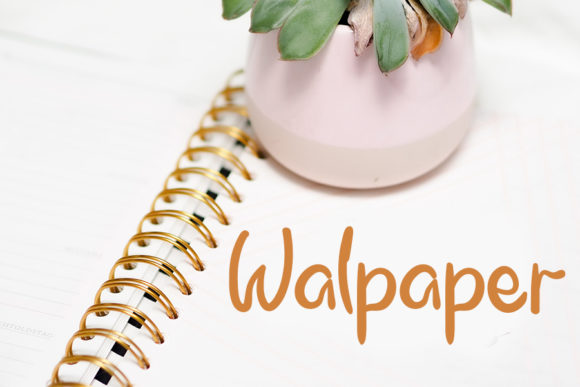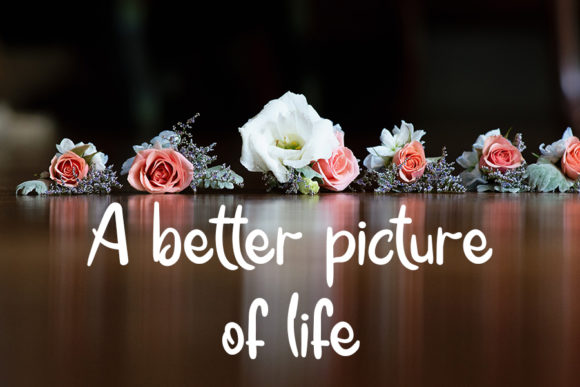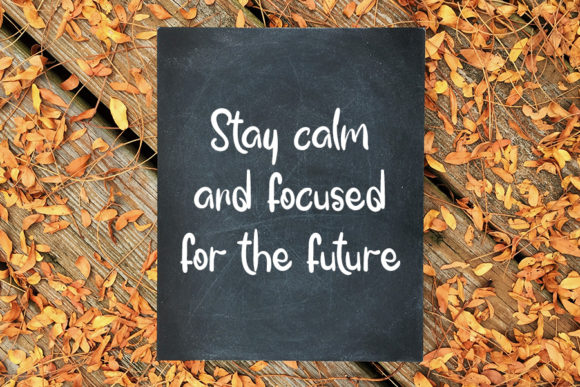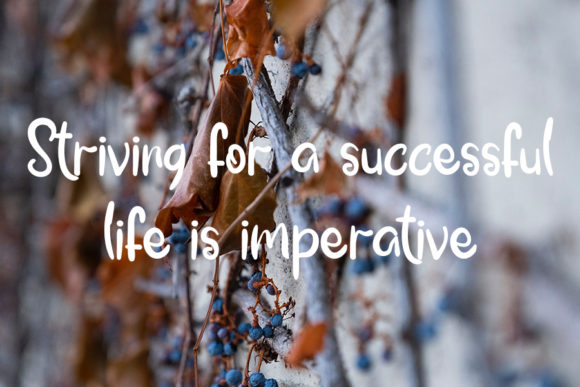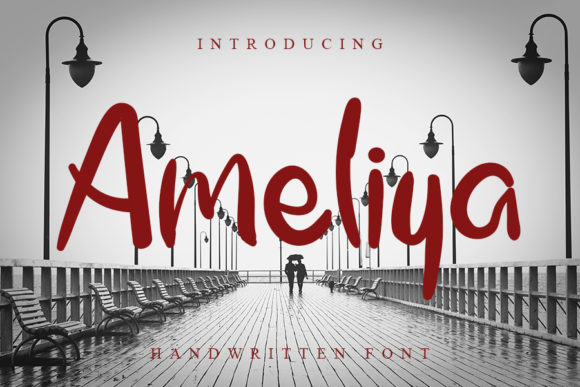
Introducing Ameliya Font: The Bold and Fun Handwritten Font for Your Design Needs
Are you a designer or crafter looking for a unique and eye-catching font to elevate your designs? Look no further than Ameliya Font! This bold and fun handwritten font is perfect for adding a special touch to any design idea you can think of. In this article, we’ll take a closer look at Ameliya Font, its features, and how you can use it to take your designs to the next level.
What is Ameliya Font?
Ameliya Font is a modern handwritten font that exudes a sense of playfulness and creativity. Its bold and fun design makes it perfect for a wide range of design projects, from branding and advertising to crafting and DIY projects. With its unique and eye-catching style, Ameliya Font is sure to grab attention and leave a lasting impression.
Key Features of Ameliya Font
So, what makes Ameliya Font so special? Here are some of its key features:
• Bold and Fun Design: Ameliya Font has a bold and fun design that is sure to add a pop of personality to any design project.
• Handwritten Style: This font has a handwritten style that gives it a personal and unique touch.
• Easy to Read: Despite its bold design, Ameliya Font is easy to read and understand, making it perfect for use in a wide range of design projects.
• Versatile: Ameliya Font is versatile and can be used in a variety of design projects, from branding and advertising to crafting and DIY projects.
How to Use Ameliya Font in Your Designs
Now that we’ve covered the features of Ameliya Font, let’s talk about how you can use it in your designs. Here are some ideas to get you started:
• Branding and Advertising: Use Ameliya Font to create eye-catching logos, posters, and advertisements that grab attention and leave a lasting impression.
• Crafting and DIY Projects: Add a personal touch to your crafting and DIY projects with Ameliya Font. Use it to create custom signs, labels, and other decorative items.
• Social Media Graphics: Use Ameliya Font to create engaging social media graphics that stand out from the crowd.
• Wedding and Event Decor: Add a touch of elegance and sophistication to your wedding and event decor with Ameliya Font. Use it to create custom signs, invitations, and other decorative items.
Tips for Using Ameliya Font Effectively
Here are some tips for using Ameliya Font effectively in your designs:
• Use it Sparingly: While Ameliya Font is bold and eye-catching, it’s best to use it sparingly to avoid overwhelming your design.
• Pair it with Other Fonts: Pair Ameliya Font with other fonts to create a unique and visually appealing design.
• Experiment with Colors: Experiment with different colors to find the perfect combination that works with Ameliya Font.
In conclusion, Ameliya Font is a bold and fun handwritten font that is perfect for designers and crafters looking to add a special touch to their designs. With its unique and eye-catching style, Ameliya Font is sure to grab attention and leave a lasting impression. Whether you’re working on a branding project, crafting and DIY project, or social media graphic, Ameliya Font is a great choice. So why not give it a try and see how it can elevate your designs?